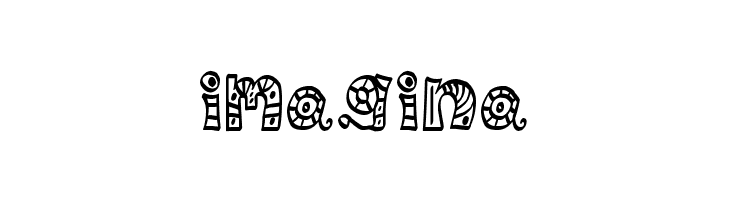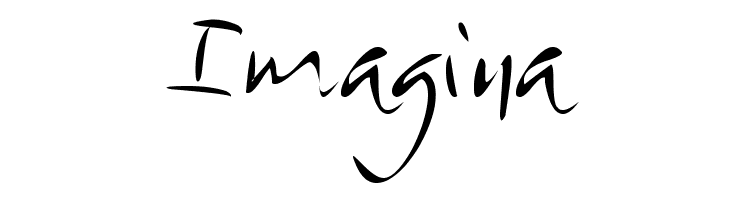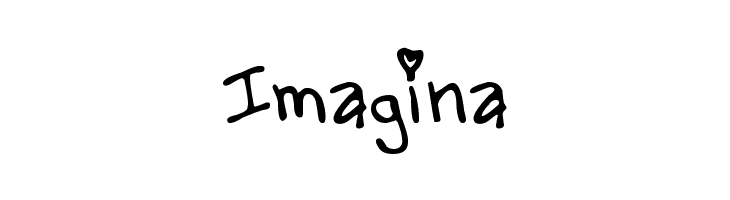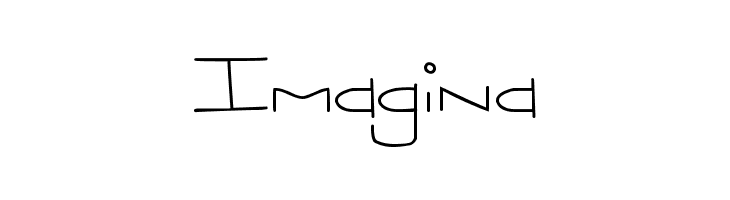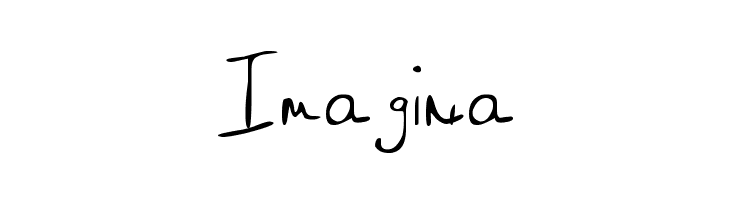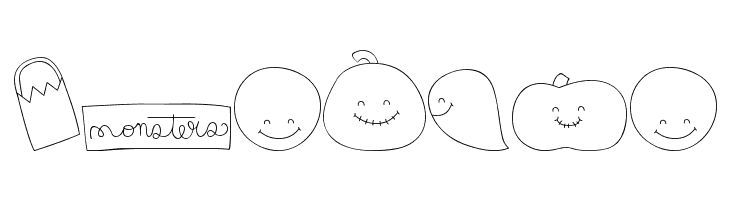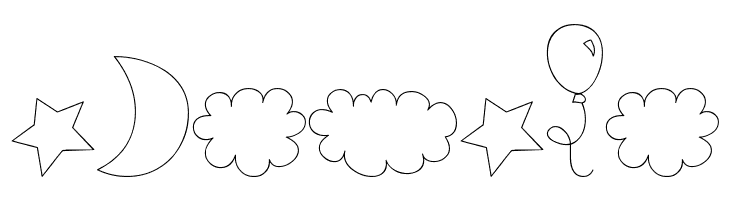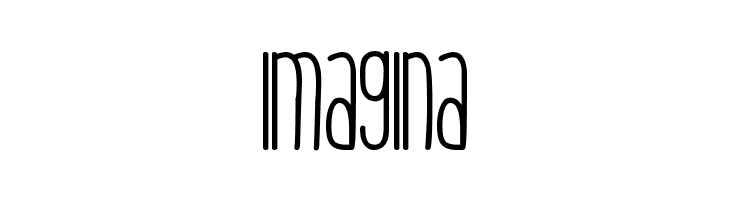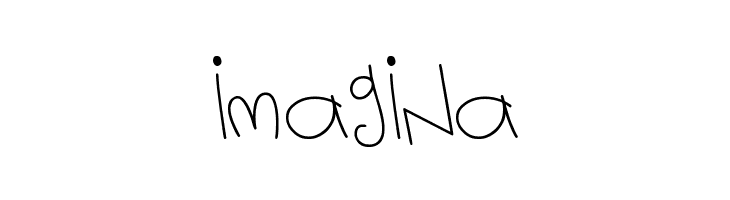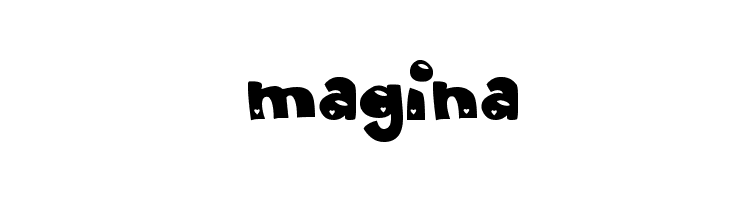
A playful handwritten font with flowing, irregular strokes and unique character designs.
A casual, handwritten font with a playful and informal style.
A playful, handwritten font with whimsical, informal characteristics.
A playful, handwritten font with thin, flowing strokes and a casual style.
A casual, handwritten font with fluid strokes and a personal touch.
An ornate script font with elaborate swirls and vintage charm.
A playful, handwritten font with a casual and whimsical style.
A playful, handwritten font with fluid strokes and a casual style.
A playful, handwritten font with a casual and friendly appearance.
A playful handwritten font with a casual, whimsical style.
A playful, heart-adorned font with bold, rounded characters.
A playful, hand-drawn font with thin lines and whimsical letterforms.
A whimsical font with flower motifs on each character, offering a playful and decorative style.
A playful, handwritten font with a whimsical and friendly style.
A playful, bold font with rounded characters and a whimsical style.
A dynamic, brush-style font with expressive, calligraphic strokes.
A playful, casual handwritten font with irregular, whimsical letterforms.
A playful, casual handwritten font with uneven strokes and a dynamic appearance.
A playful, hand-drawn font with intricate patterns and doodles.
A tall, narrow font with elongated, thin characters for a sleek, modern look.
A playful handwritten font with a casual and friendly style.
A playful and whimsical font with bold, rounded characters and a fun, informal style.
A playful font of sweet-themed dingbats with whimsical dessert and fruit icons.
A playful dingbat font with cute Halloween-themed illustrations.
A whimsical dingbat font with nature-themed illustrations.
A whimsical, sky-themed dingbat font with playful and airy designs.
A playful, handwritten font with a whimsical and casual style.
A playful, bold handwritten font with rounded edges and consistent strokes.
A bold, outlined font with a playful, three-dimensional effect.
A playful and whimsical font with exaggerated curves and a hand-drawn appearance.
A whimsical font with floral embellishments and delicate curves.
A playful, whimsical font with curly, flowing letterforms.